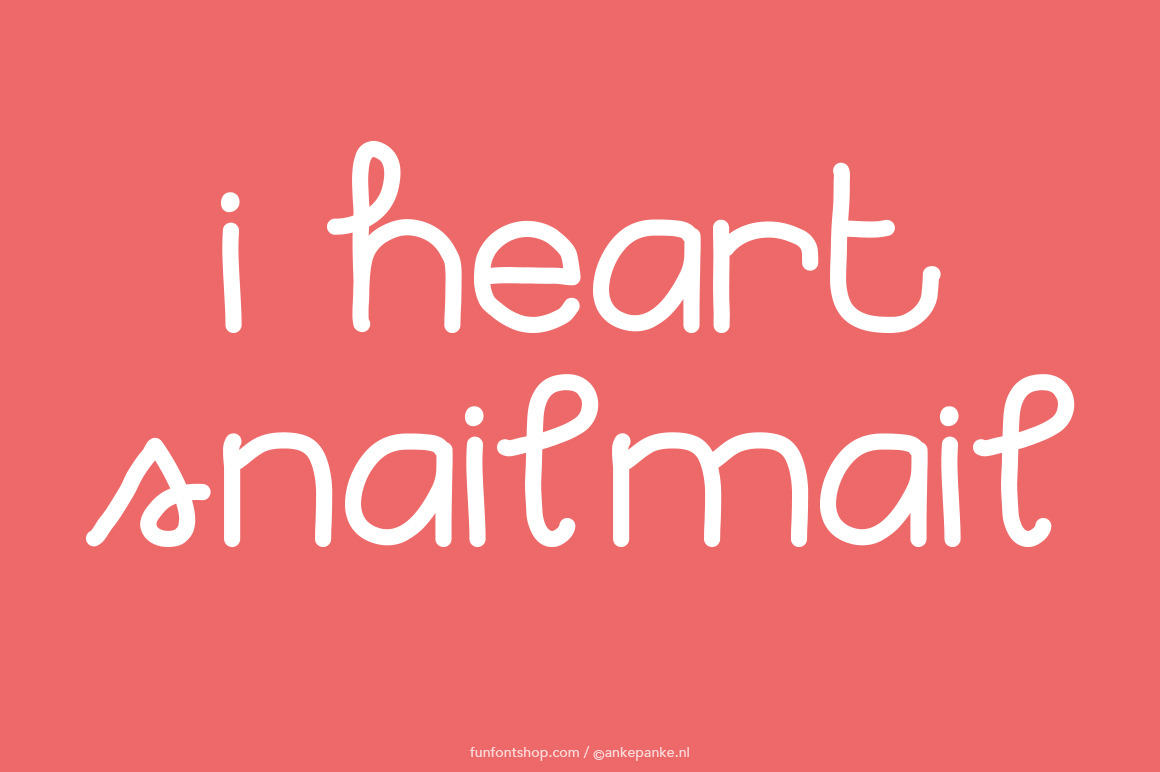
I Heart Snailmail Font
A simple font that looks like I wish my handwriting was like, a combination of block letters and how you learned to write in school. This font is created digitally, so big or small: it's always clean.
- Letters Lowercase and numbers
- Punctuation !?#%&*±+=-_,.:;'"/|¢£€$©®@({[]|)
- Extra heart, star, flowers and smileys